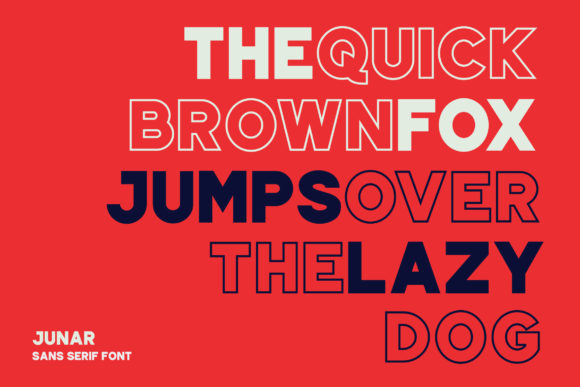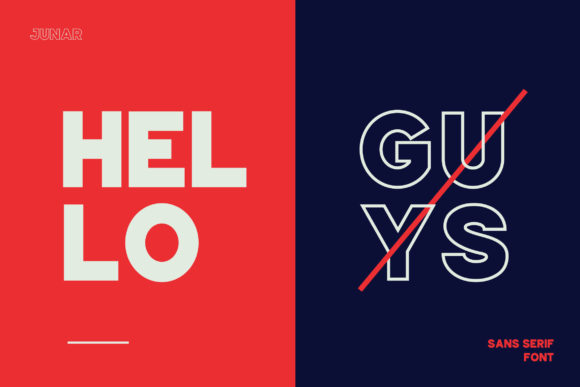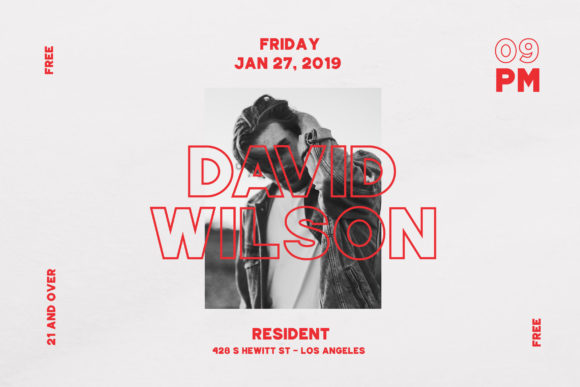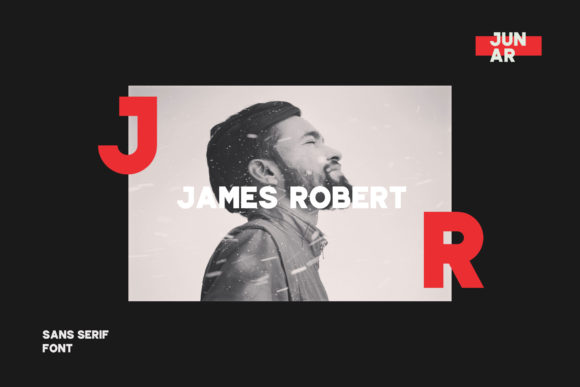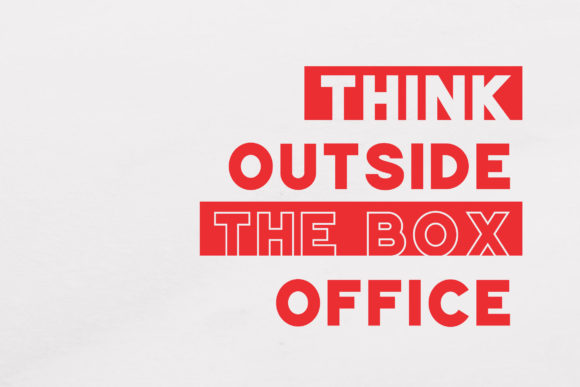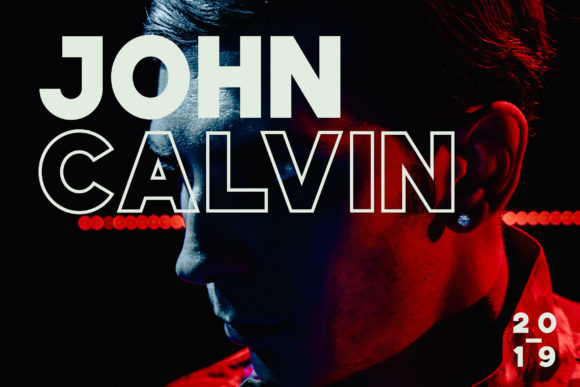
Introduction to Junar Font
Imagine you’re staring at a blank canvas, trying to bring your latest creative project to life. The cursor blinks, and you’re about to type out the words that will make your design stand out. But, you’re stuck. The words just don’t seem to pop, and the font you’re using doesn’t quite convey the emotion you want to convey. That’s when you discover the Junar Font – a powerful, sophisticated sans serif that will take your design to the next level.
Whether you’re working on a social media campaign, a magazine spread, or a large format print, the Junar Font is the perfect design resource to make your message heard. With its modern touches and controlled letter shapes, this font is sure to leave a lasting impression on your audience. And the best part? It’s a high-quality font that’s free to download and use with a transparent background, giving you the creative freedom to focus on what really matters – bringing your vision to life.
As a designer, you know how valuable it is to have access to high-quality design resources like the Junar Font. Not only does it save you time and effort, but it also elevates your work to a whole new level of professionalism and sophistication. So, why settle for anything less? Make the Junar Font your go-to design choice and watch your creative projects soar to new heights.
Key Features of Junar Font
- High-quality font design suitable for various creative projects, including digital art and graphic design.
- Features a transparent background, allowing for seamless integration into any design or creative project.
- Designed as a versatile design resource, ideal for use in logos, typography, and other visual elements.
- Includes a range of scalable sizes, from 12pt to 72pt, and resolutions up to 300 DPI for high-quality output.
- Unique characteristics include its modern and sleek design, making it perfect for contemporary creative projects.
Honest Review: Junar Font
I recently had the chance to work with the Junar Font, a highly sought-after design resource that’s free to download. I was excited to dive in and see how it would enhance my creative project. Overall, I was impressed with the results.
Here are some of the things that worked well:
- ✨ High-quality design: The Junar Font is incredibly detailed and visually appealing, making it perfect for a variety of design applications.
- ✨ Versatile: This font is incredibly versatile, suitable for both modern and traditional design projects.
- ✨ Easy to use: With its transparent background, it’s a breeze to place and manipulate in design software.
- ⚠️ Limited character set: The Junar Font only includes a limited character set, which may not be suitable for projects that require a wide range of characters.
- ⚠️ May require adjustments: Depending on the design software you’re using, you may need to make some adjustments to the font’s settings to achieve the desired look.
Overall, I’m really impressed with the Junar Font and would definitely recommend it to designers looking for a high-quality, free design resource. Just be aware of its limitations and plan accordingly.
Junar Font
Tips for Getting the Most Out of Junar Font
To get the most out of Junar Font, use it in conjunction with other design resources to create a cohesive and professional-looking design. Experiment with different font sizes, colors, and styles to find the perfect combination for your creative project.
The Junar Font is ideal for use in a variety of creative projects, including logos, graphics, presentations, and documents. Its high-quality design and transparent background make it perfect for overlaying text on images and creating professional-looking designs.